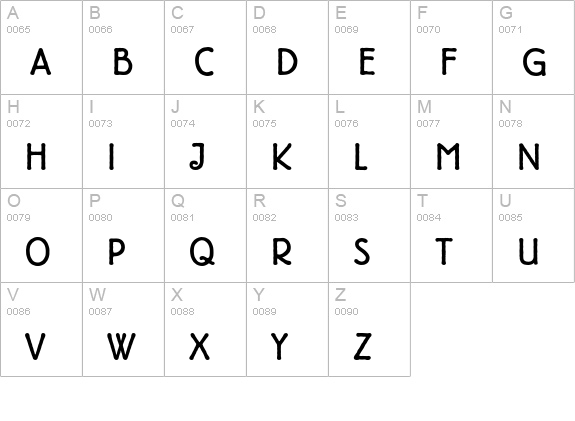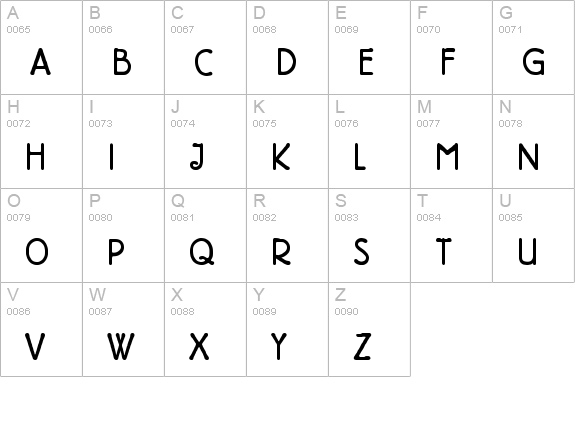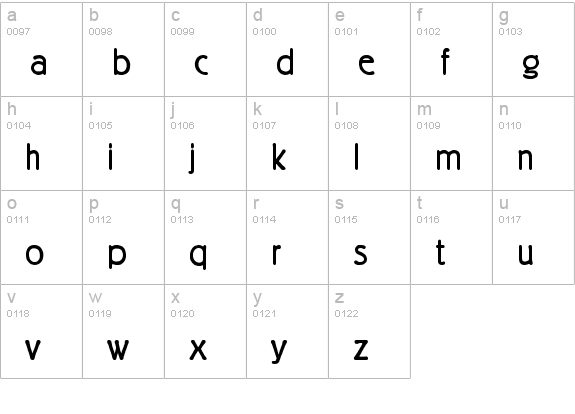
Berliner Grotesk D Light is a refined, elegant variant in the Berliner typeface family \xE2\x80\x94 well suited to elegant body text, refined sub-headings, and luxury branding.
Berliner Grotesk D Light is a modern and sleek sans-serif font that exudes elegance and sophistication. With its clean lines and minimalist design, this typeface is perfect for creating a contemporary and stylish look in your designs. The light weight of the font adds a touch of delicacy and refinement, making it ideal for projects that require a subtle and sophisticated aesthetic. What's even better is that Berliner Grotesk D Light is available for free download at FontsMarket.com. This means you can easily access this beautiful font and use it in your projects without any cost. Whether you're designing a website, creating a logo, or working on a print project, Berliner Grotesk D Light is sure to add a touch of class and elegance to your work. Don't miss out on this amazing opportunity to enhance your designs with this stunning font – download it for free today at FontsMarket.com!